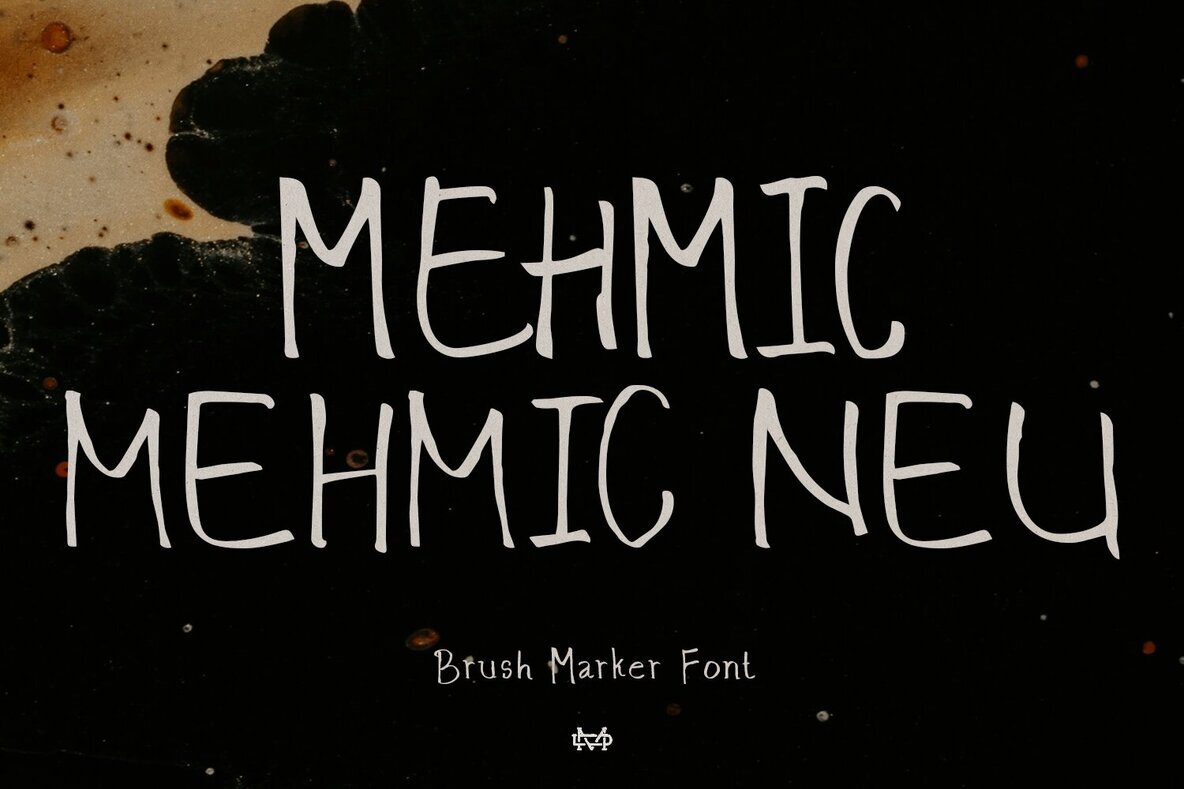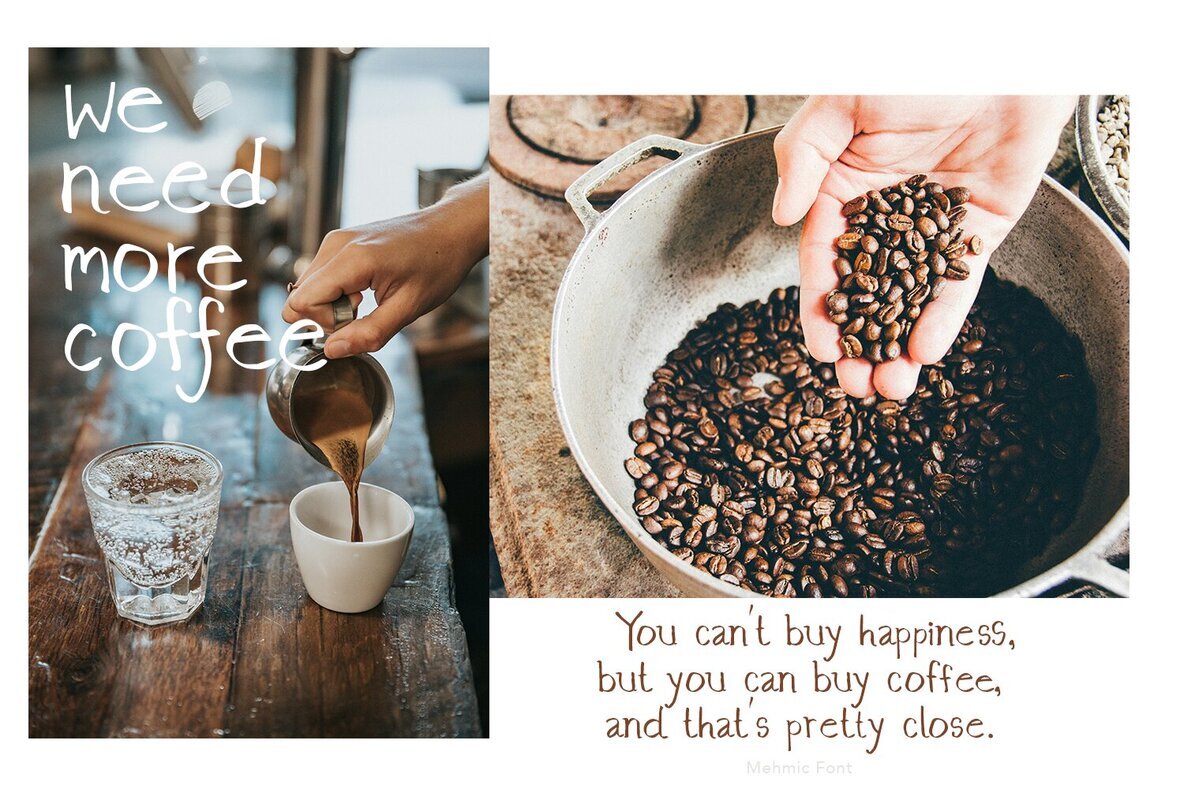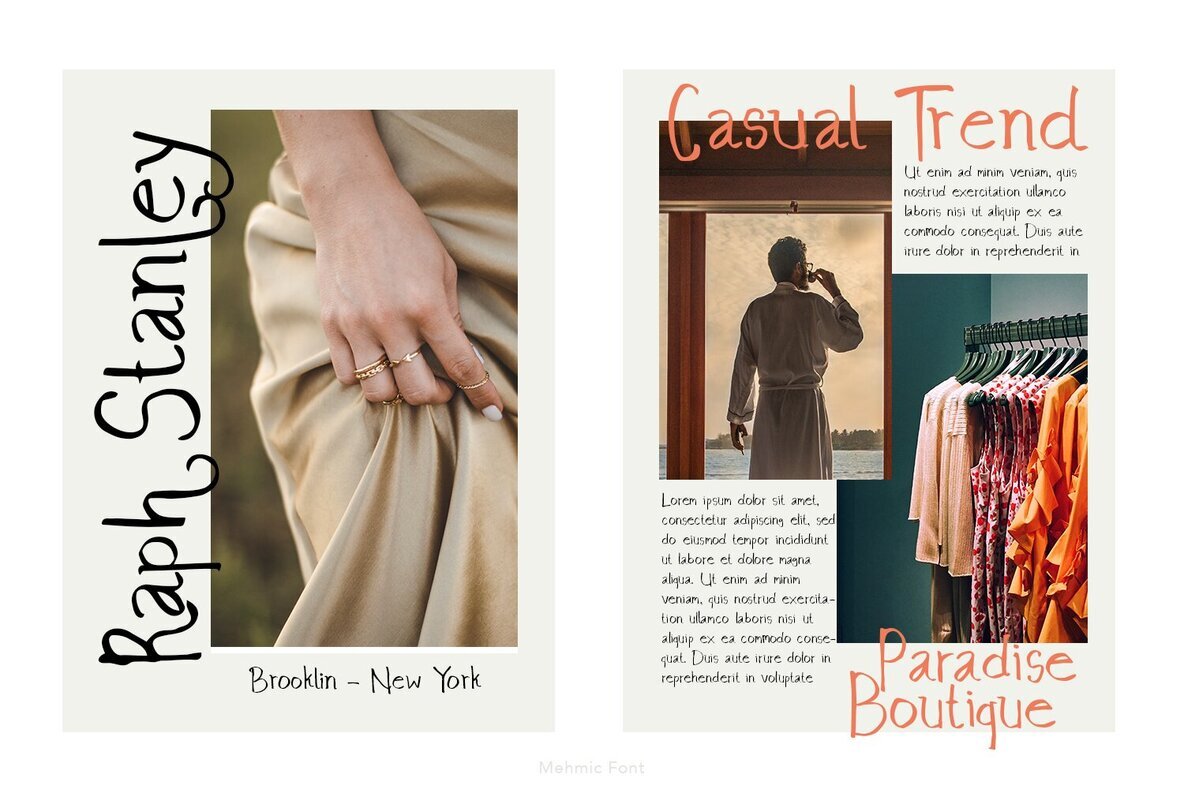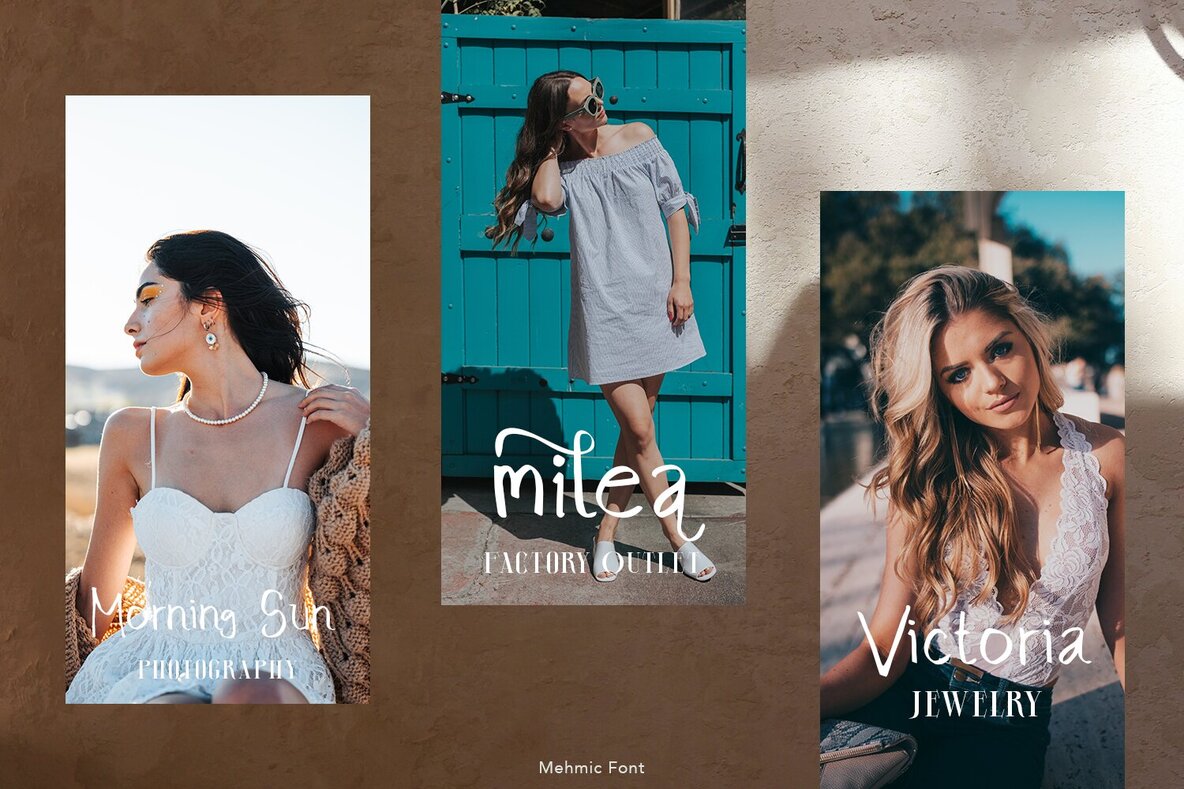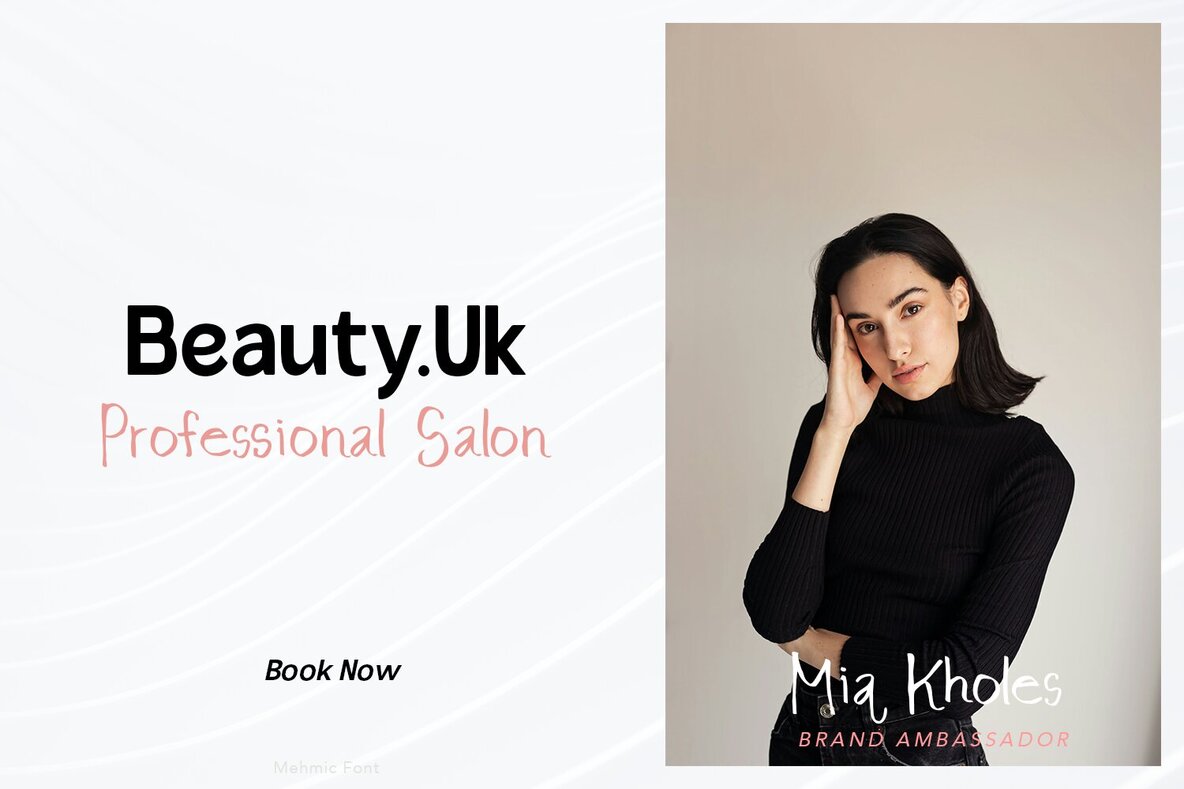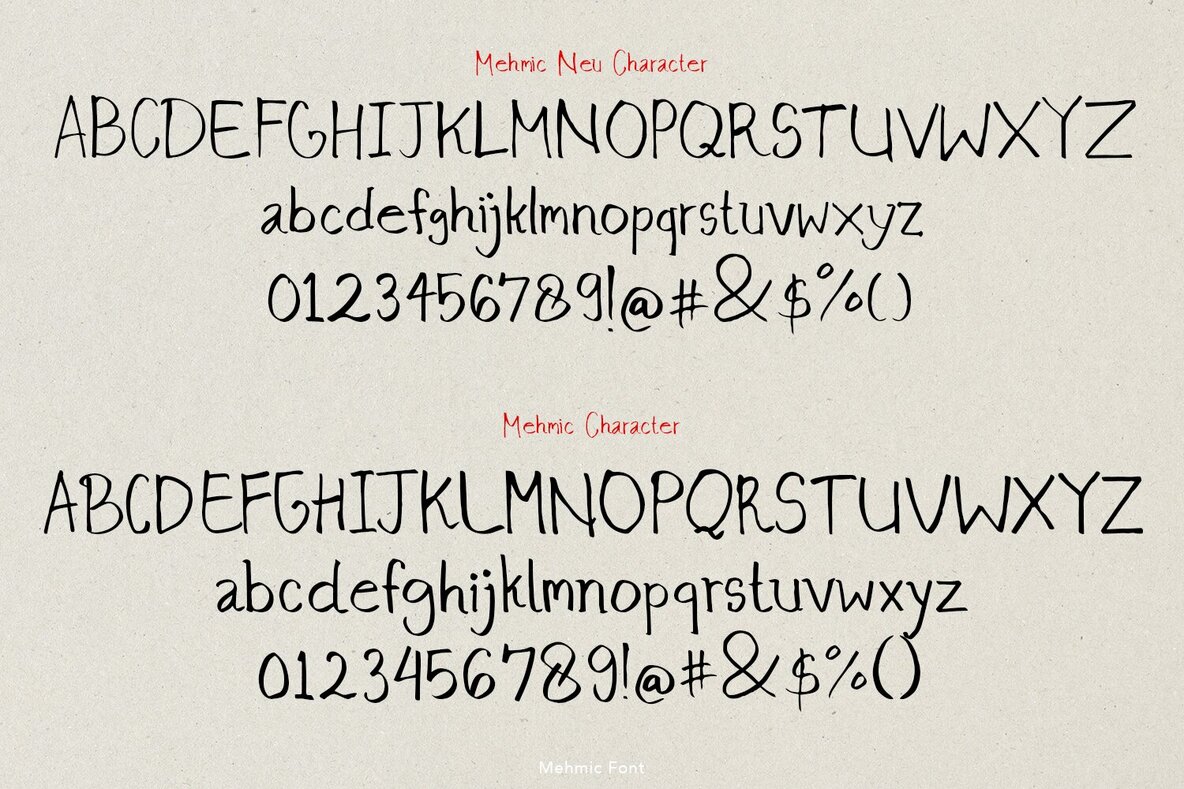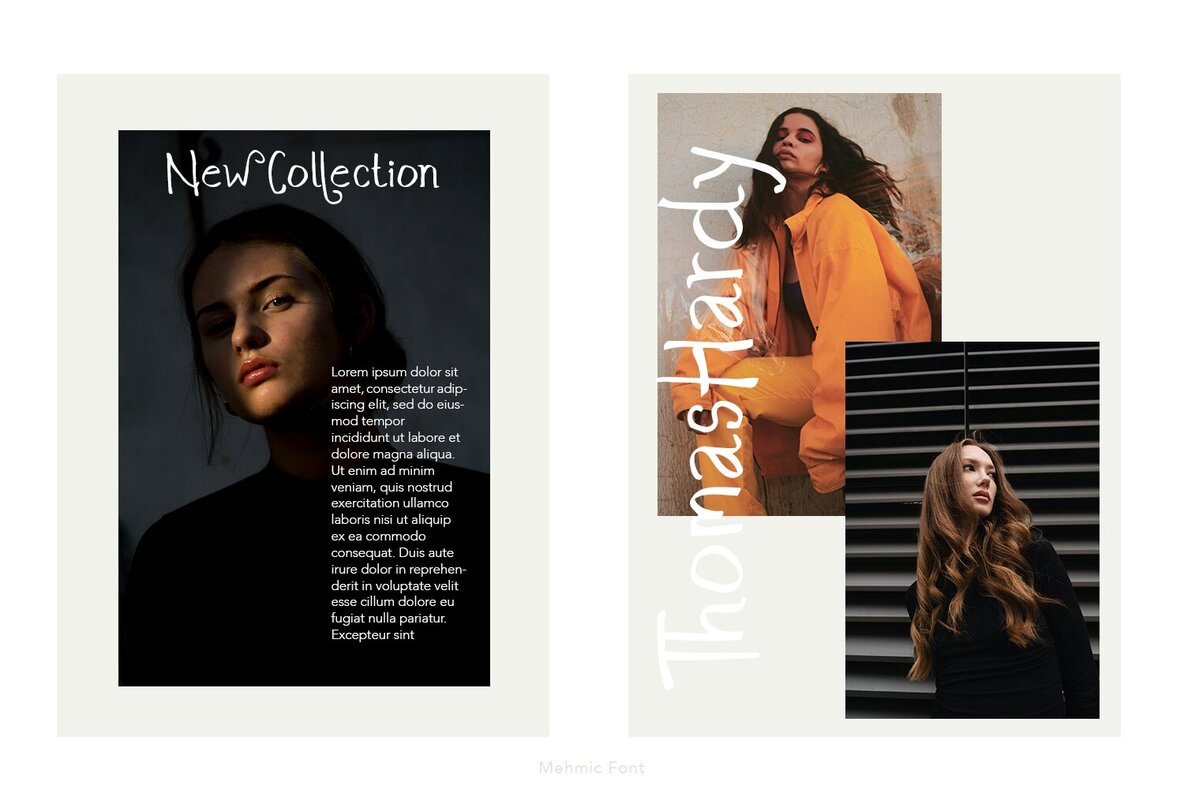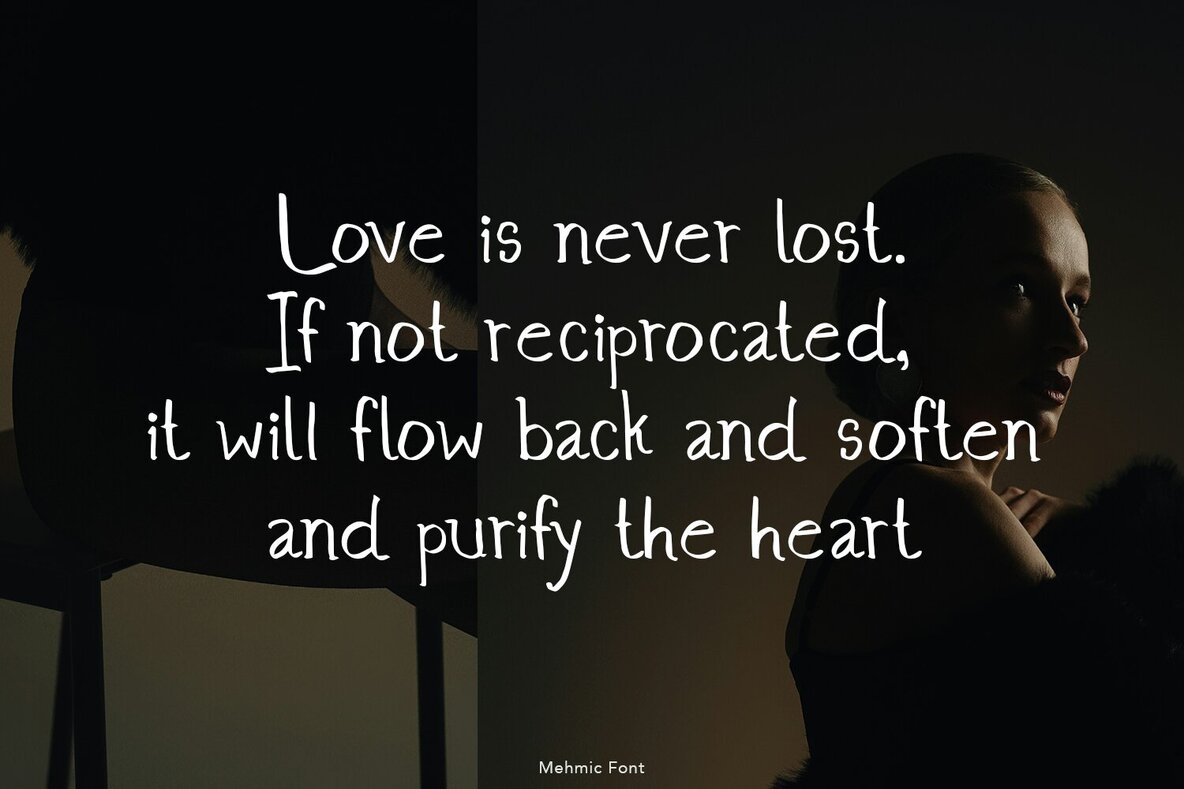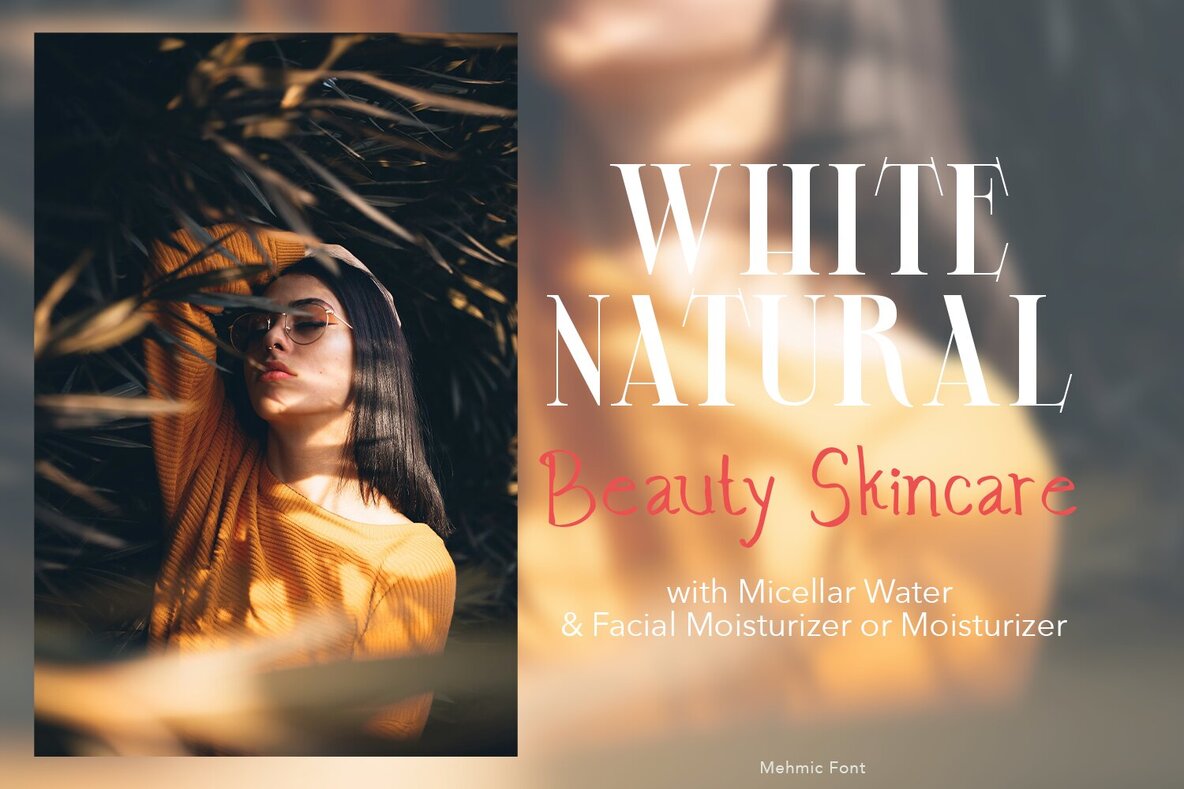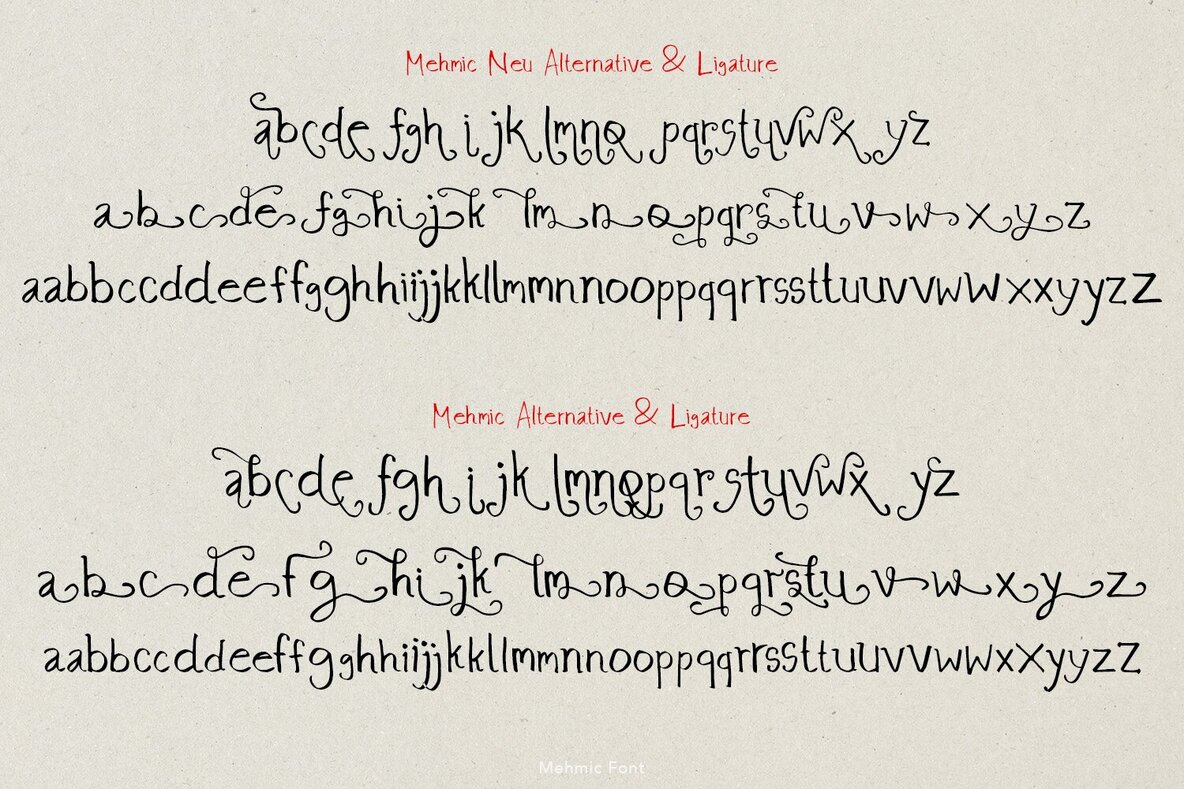
Mehmic Font
Mehmic and Mehmic Neu are dynamic brush marker handwritten fonts designed to infuse an impressive and authentic touch into all your design projects. These fonts are crafted with a plethora of ligatures and alternatives, ensuring your text maintains an organic and realistic handmade feel.
Perfect for a variety of applications, Mehmic provides designers with the flexibility to create unique and captivating typography. Whether you're working on branding, posters, invitations, or any other creative endeavor, these fonts deliver a distinctive and engaging style that enhances your project's overall appeal. With their versatile features, Mehmic and Mehmic Neu bring the charm and spontaneity of handwritten text to life.